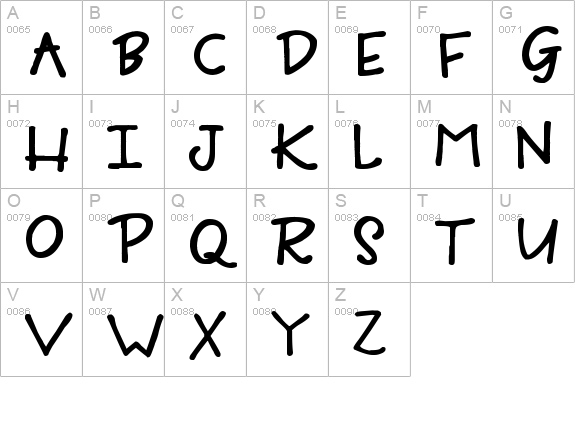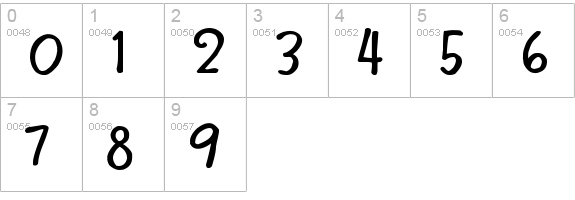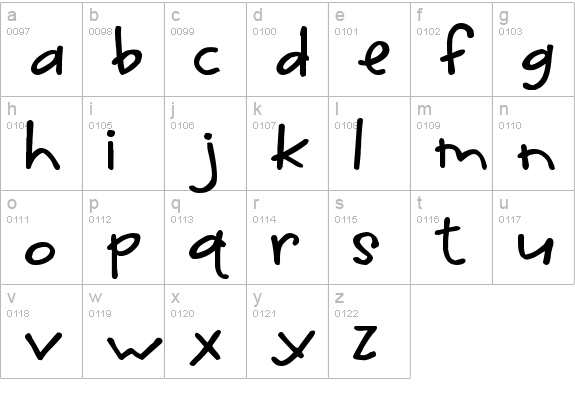
His Name Is Honey Font Details
His Name Is Honey font is a whimsical and charming typeface that exudes warmth and sweetness. With its playful curves and delightful swashes, this font is perfect for adding a touch of fun to your designs. Whether you're working on invitations, greeting cards, or branding projects, His Name Is Honey is sure to bring a smile to your audience's face. Best of all, this delightful font is available for free download at FontsMarket.com. So go ahead and add a sprinkle of honey to your next project with His Name Is Honey font - your audience will thank you for it!